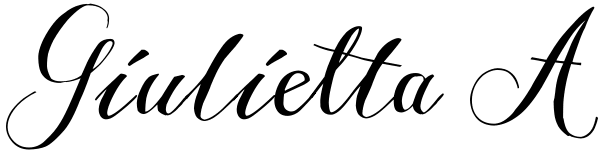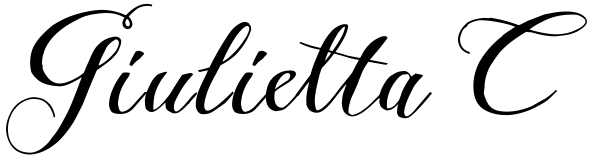
Giulietta
Giulietta is a handwritten, fully connected script with ligatures and contextual alternates to help with flow and readability. It can be used for invitations, greeting cards, posters, advertising, weddings, books, menus etc. Giulietta pro is the...
Giulietta B
Giulietta A
Giulietta C
Giulietta Pro